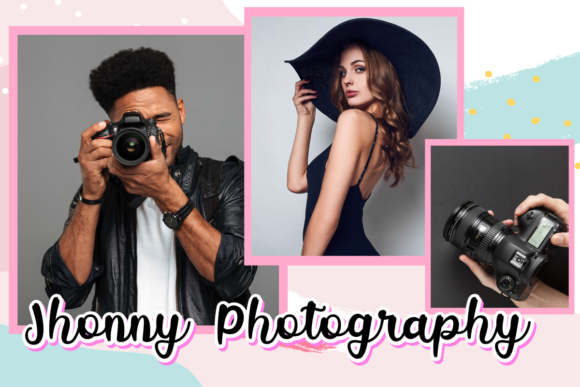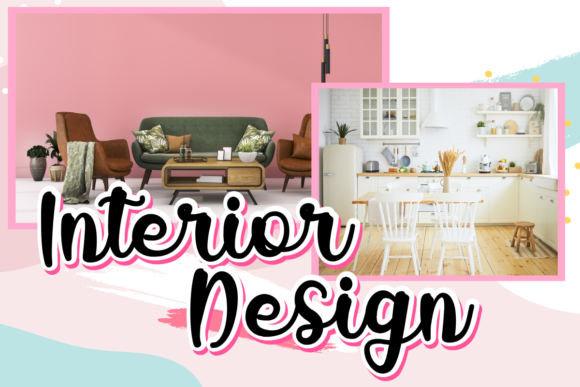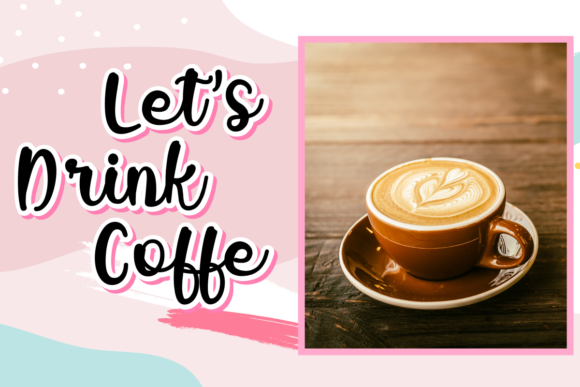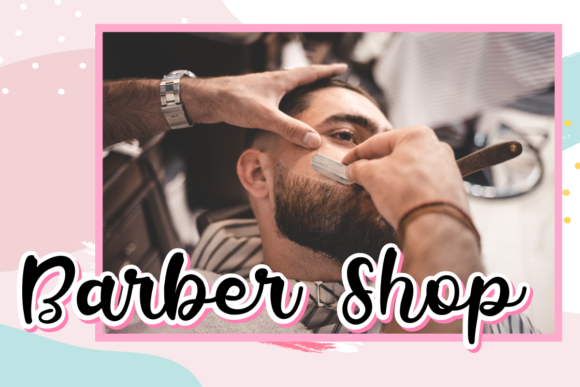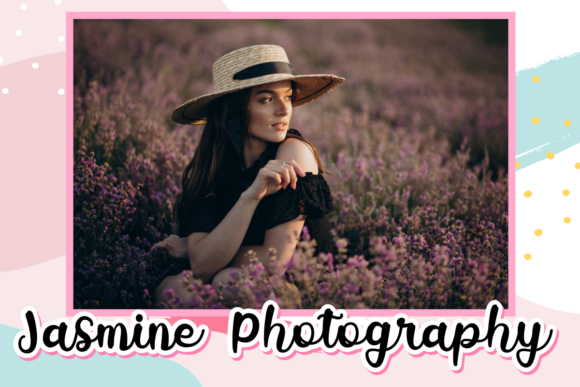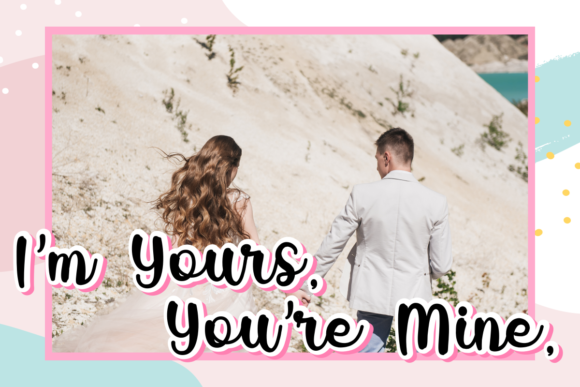
Introduction to Sherly Font
There’s nothing quite like the thrill of bringing a design concept to life, is there? The blank page stares back at you, and suddenly, the words start flowing – or, in this case, the letters. You’re about to embark on a creative journey with one of the most elegant and flowing handwritten fonts out there: the Sherly Font.
As a designer, you know that having the right tools can make all the difference. That’s why we’re excited to introduce you to the Sherly Font – a high-quality, free download that’s packed with gorgeous glyphs, stunning alternates, and a varying baseline that adds a touch of sophistication to any design project. With its smooth lines and classy calligraphic influences, this font is sure to elevate your creative projects to the next level.
Whether you’re working on a design project with a transparent background or need a reliable design resource for your next campaign, the Sherly Font is an excellent choice. Its PUA encoding makes it easy to access all the glyphs and swashes you need, ensuring that your designs are always top-notch.
Key Features of Sherly Font
- High-quality design: Sherly Font is a well-crafted, professional font ideal for creative projects that require a touch of elegance and sophistication.
- Unique characteristics: The font features a unique blend of modern and classic elements, making it an excellent choice for designers looking to add a touch of personality to their projects.
- Perfect for creative projects: Sherly Font is ideal for use in creative projects, such as logos, branding materials, and advertising campaigns.
Honest Review: Sherly Font
As a designer, I’m always on the lookout for high-quality design resources to enhance my creative projects. Recently, I stumbled upon the Sherly Font, and I’m excited to share my honest review with you.
What works well: ✨ The Sherly Font is incredibly versatile, with a wide range of styles and weights to choose from. The font is also available for free download, making it an excellent addition to any design project. The transparent background feature is a nice touch, allowing for seamless integration with any design element.
Overall, I’m impressed with the Sherly Font, and I’d definitely recommend it to fellow designers looking for a high-quality, free design resource for their creative projects.
Sherly Font
Tips for Getting the Most Out of Sherly Font
To get the most out of Sherly Font, use it in conjunction with a transparent background to create a clean and modern design. Experiment with different font combinations and styles to achieve a unique look.
Sherly Font is commonly used for creative projects, such as social media graphics, presentations, and marketing materials. Its high-quality design makes it an ideal choice for professional and personal projects alike.